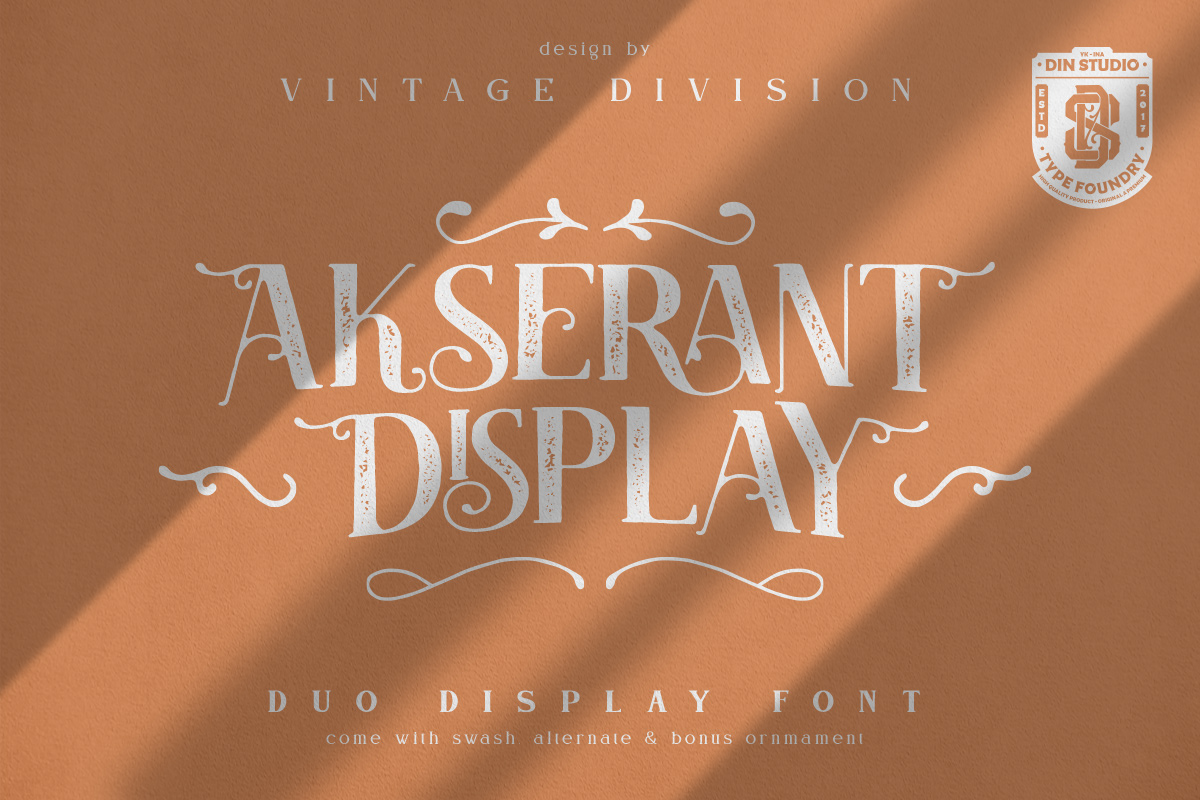
Akserant Display
Akserant Display Clean
Akserant Display is an amazing display font. This font fits in headlines, logos, posters, flyers, branding materials, print media, editorial layouts, and many more. Find out more ways to use this font by taking a look at the font preview.
- 10 Ligatures
- 113 Alternates and swashes
- Bonus ornament